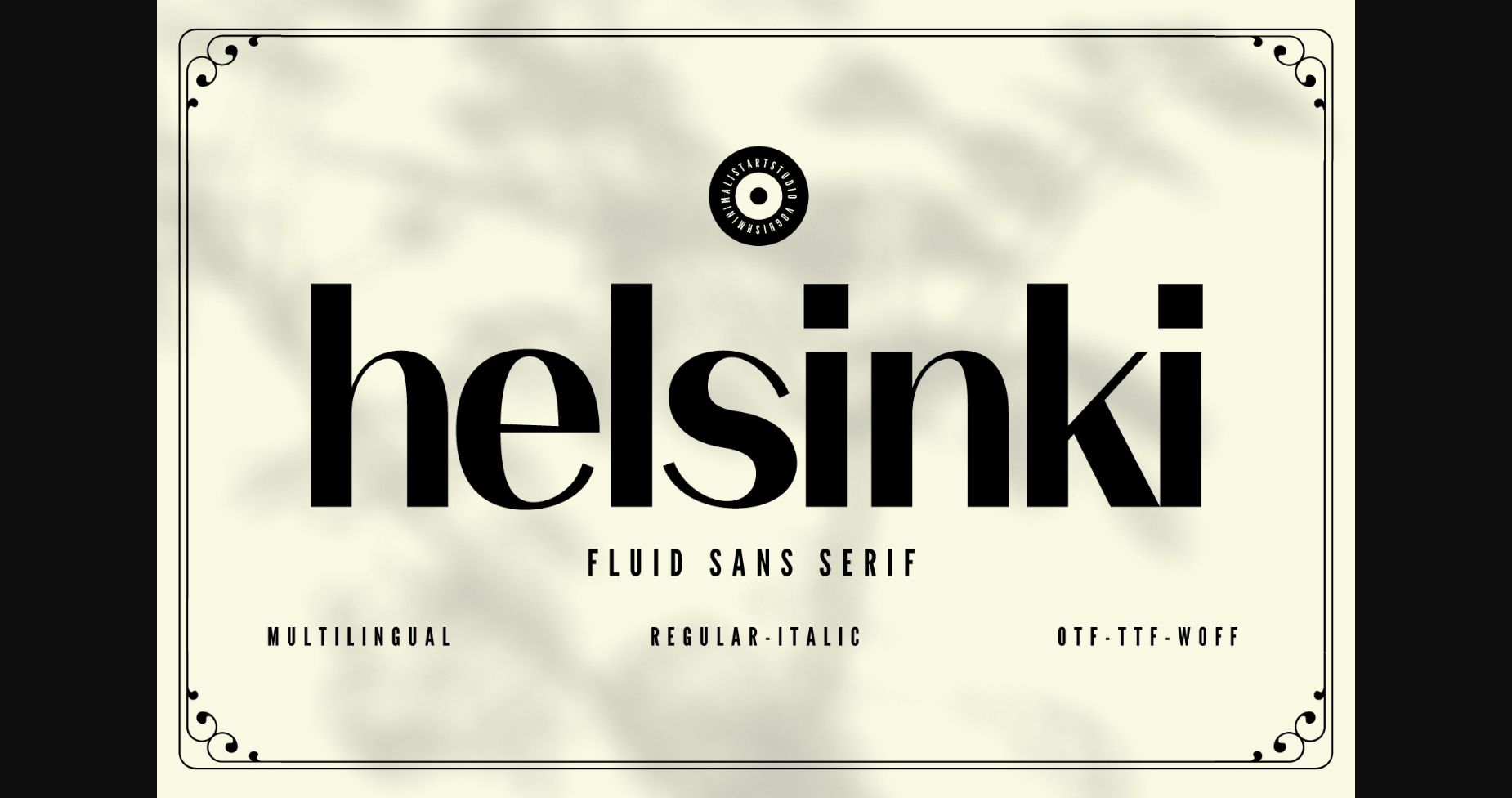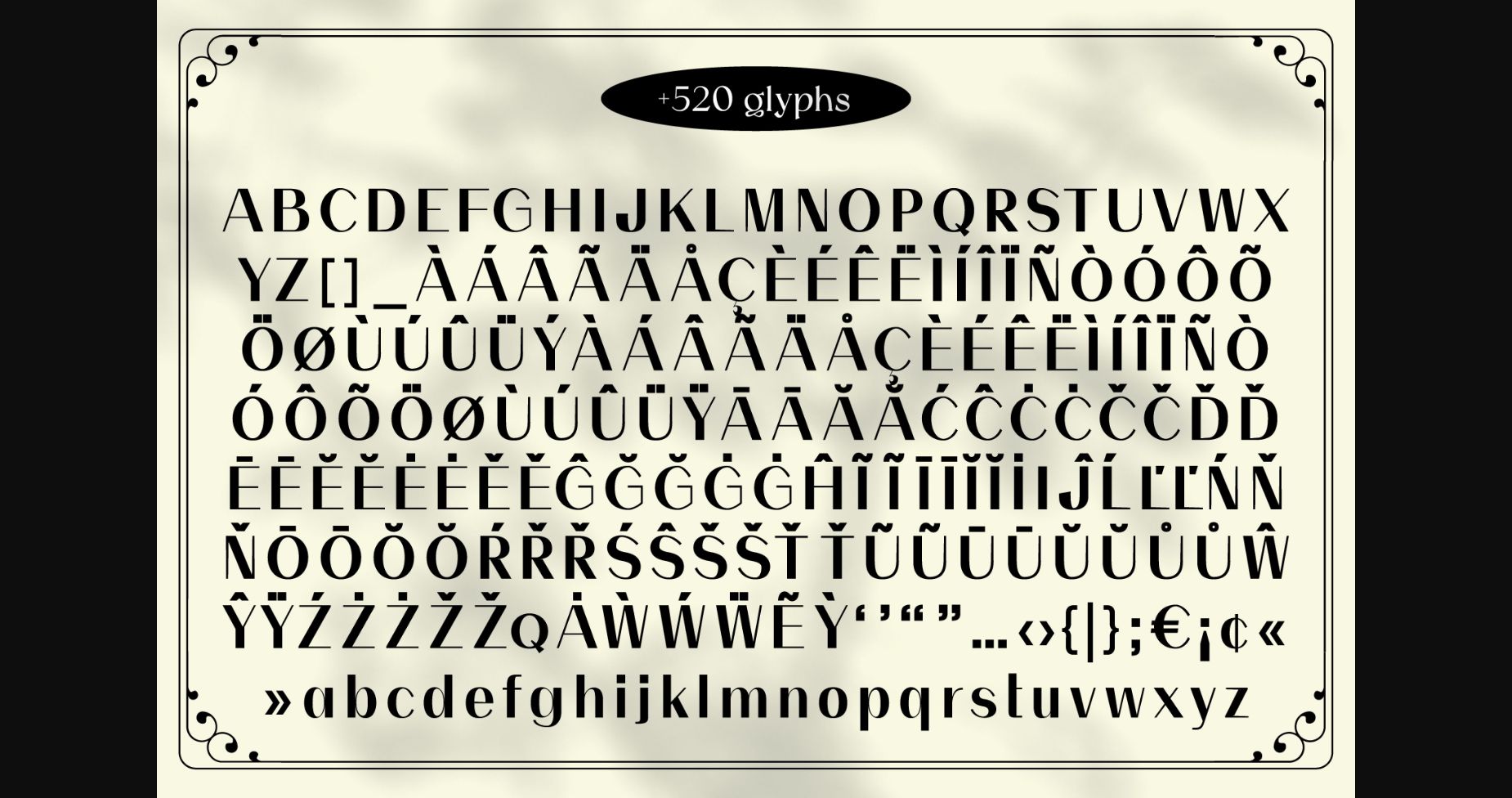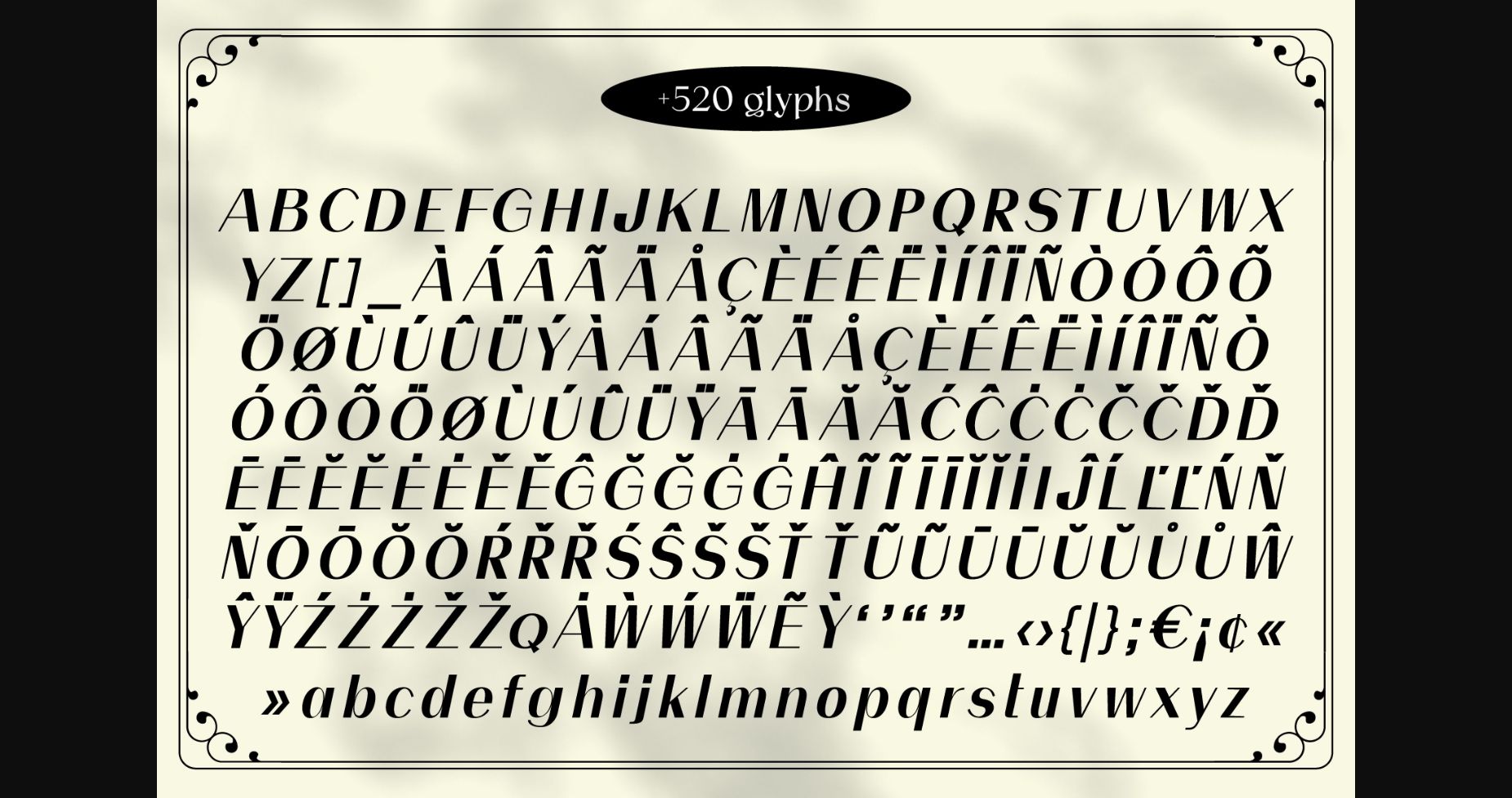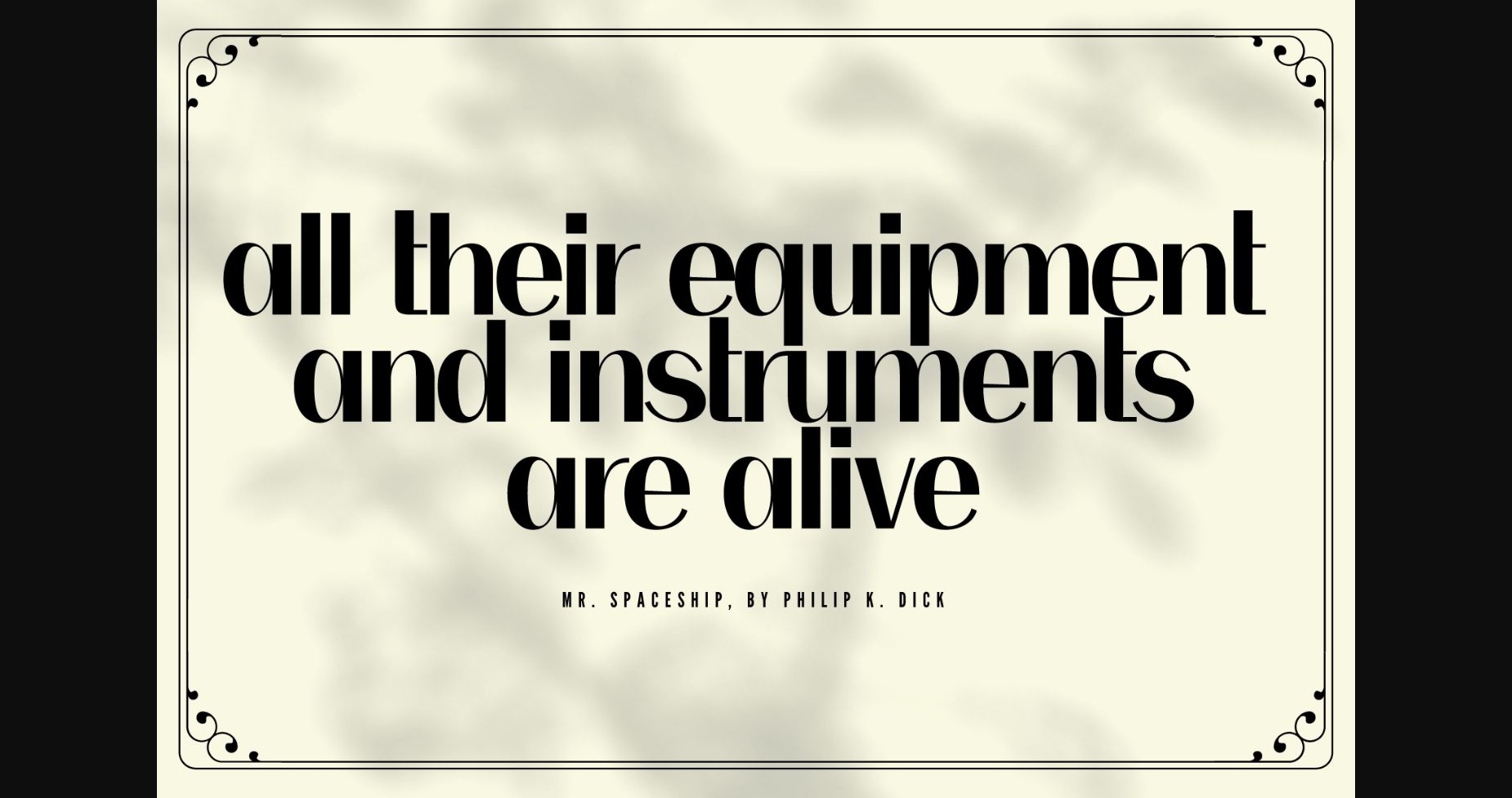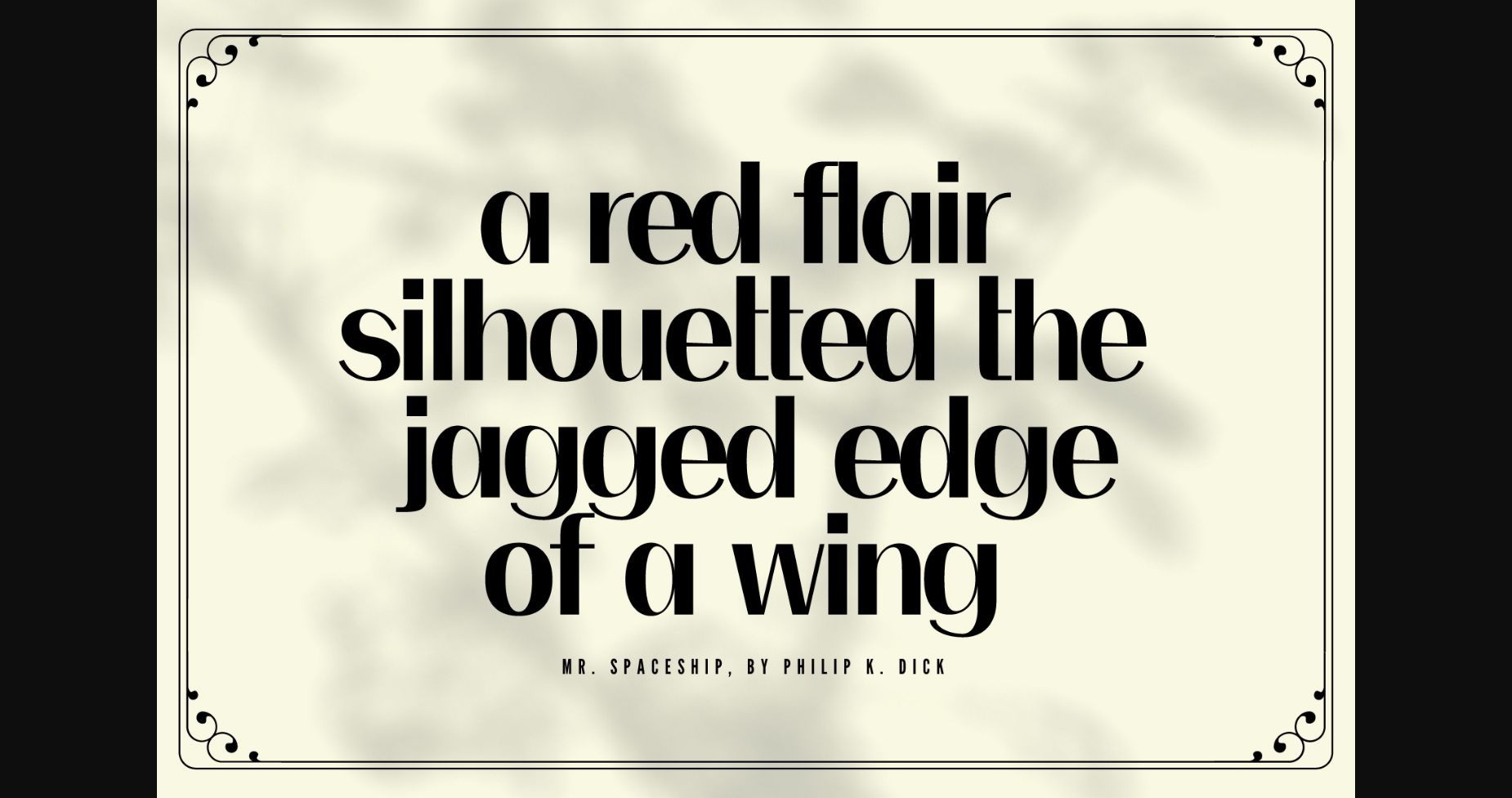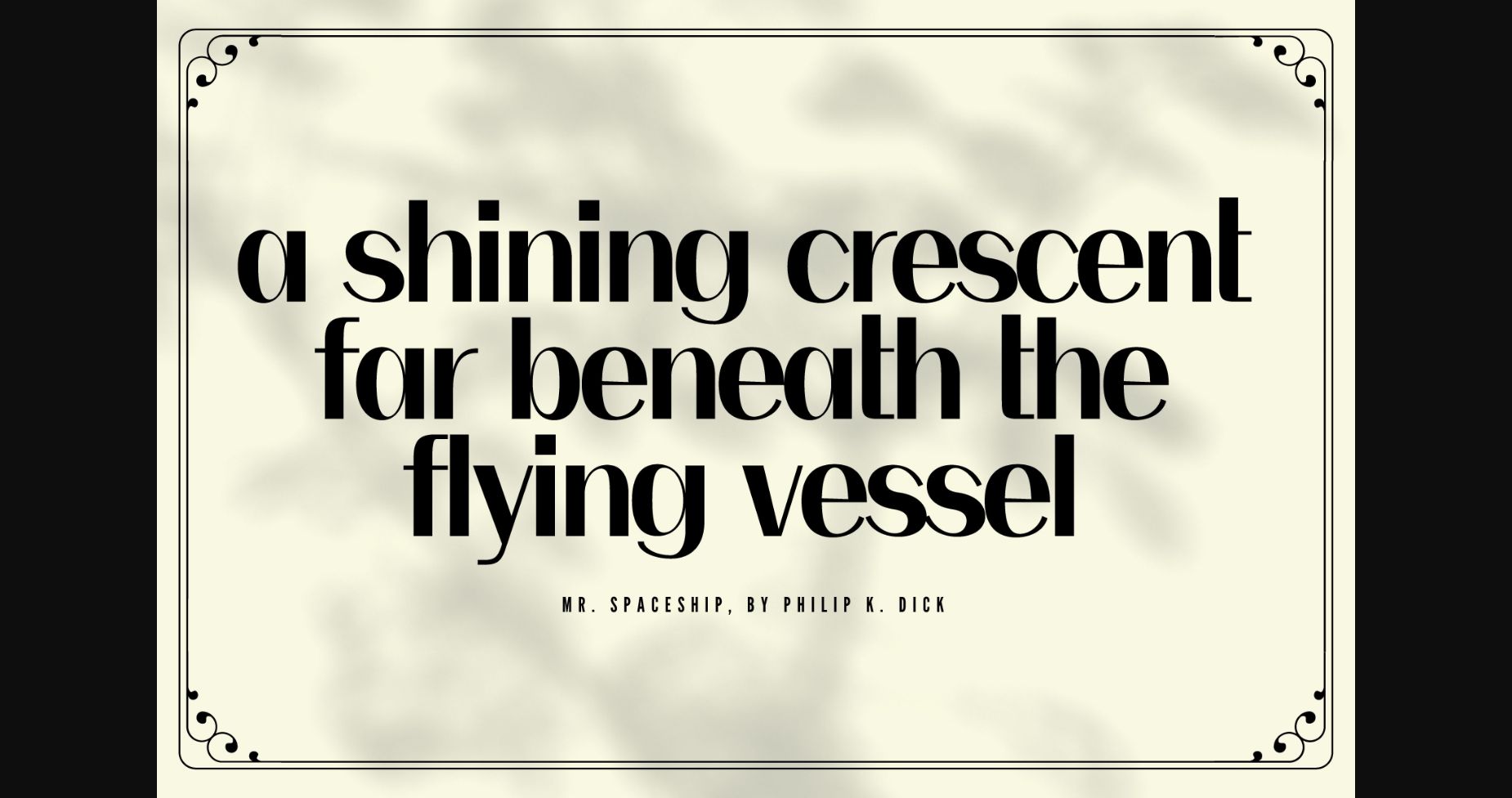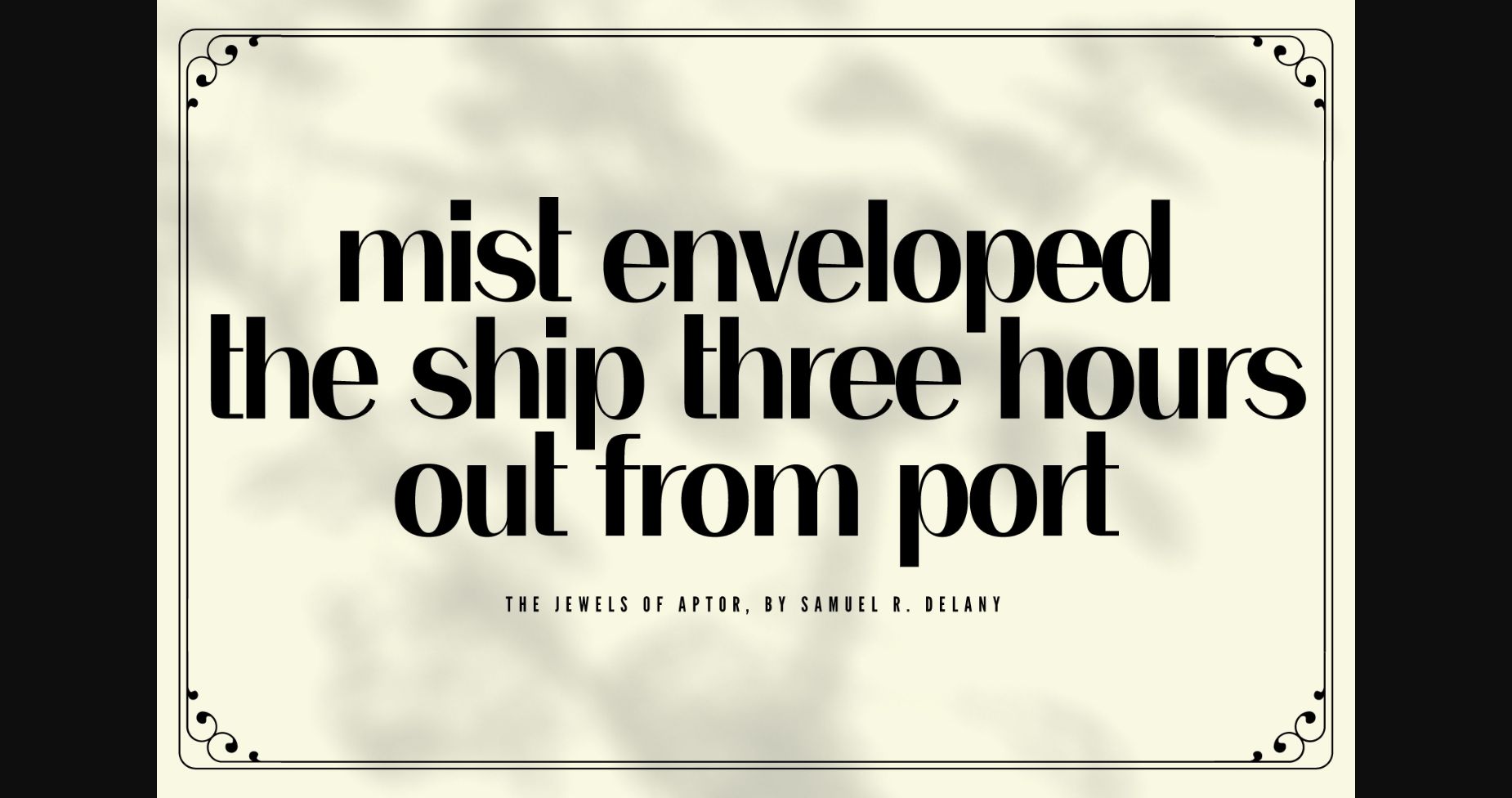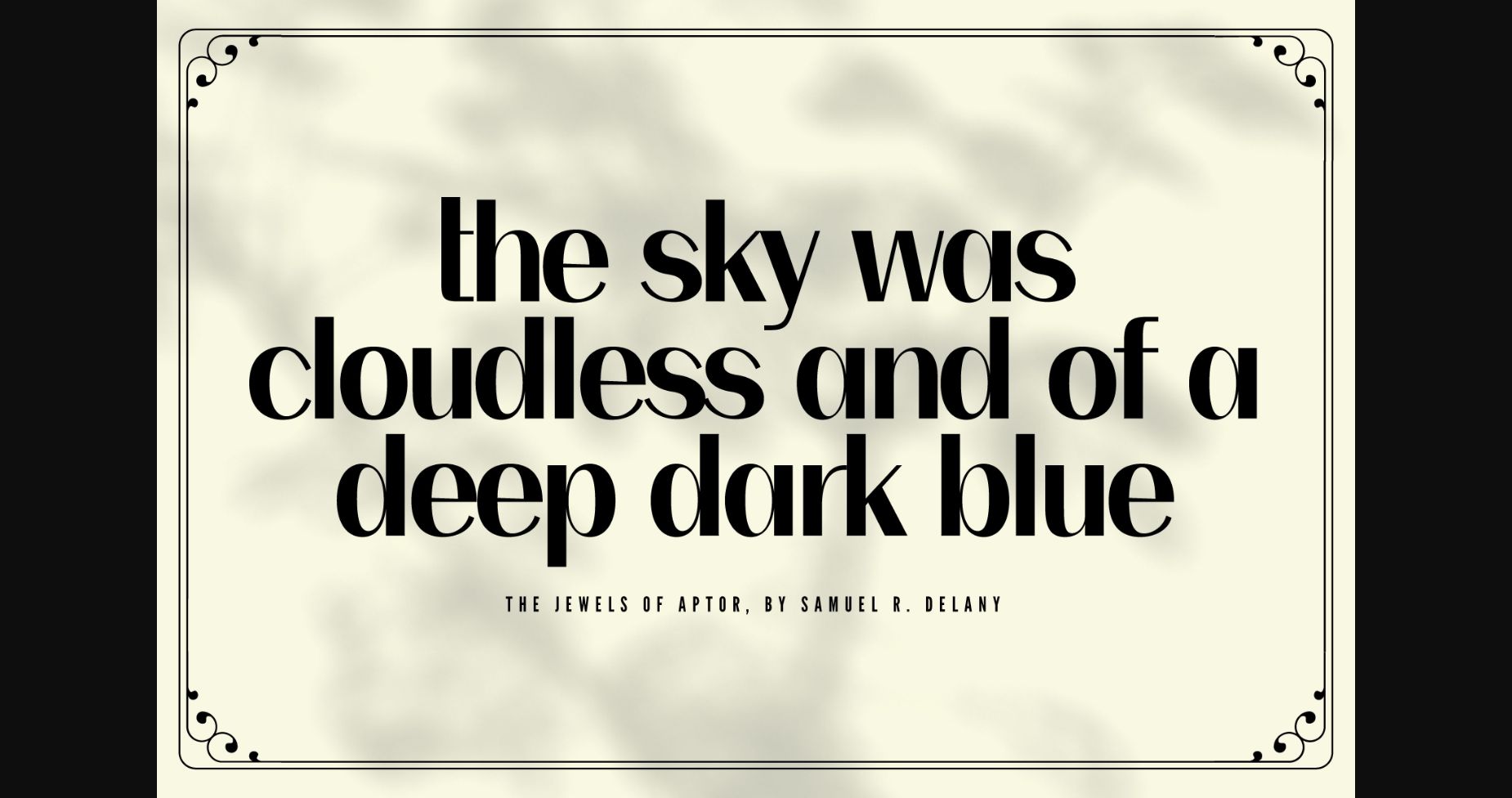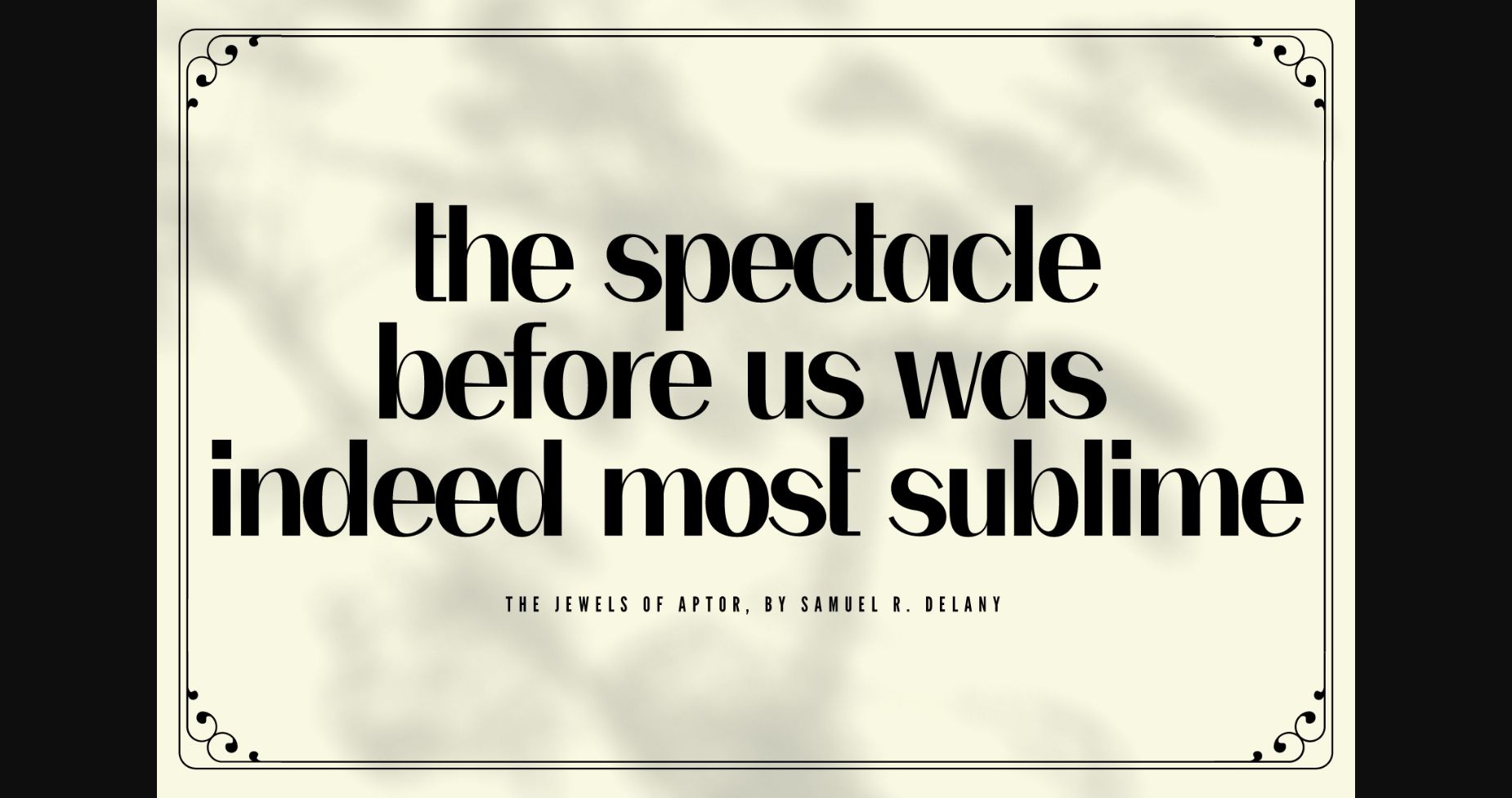
Helsinki Font
About Helsinki Font
Introducing Helsinki, the chic and bold sans serif font that exudes elegance in every character. With over 520 beautifully crafted glyphs, Helsinki offers a range of possibilities for your creative endeavors. Its clean lines and modern look make it the perfect choice for any design project, from sleek logos to sophisticated editorial layouts.
But Helsinki doesn’t just look good – it also supports multiple languages, making it a versatile option for global brands and businesses. Whether you need to showcase your content in English, French, Spanish, or any other language, Helsinki has got you covered.